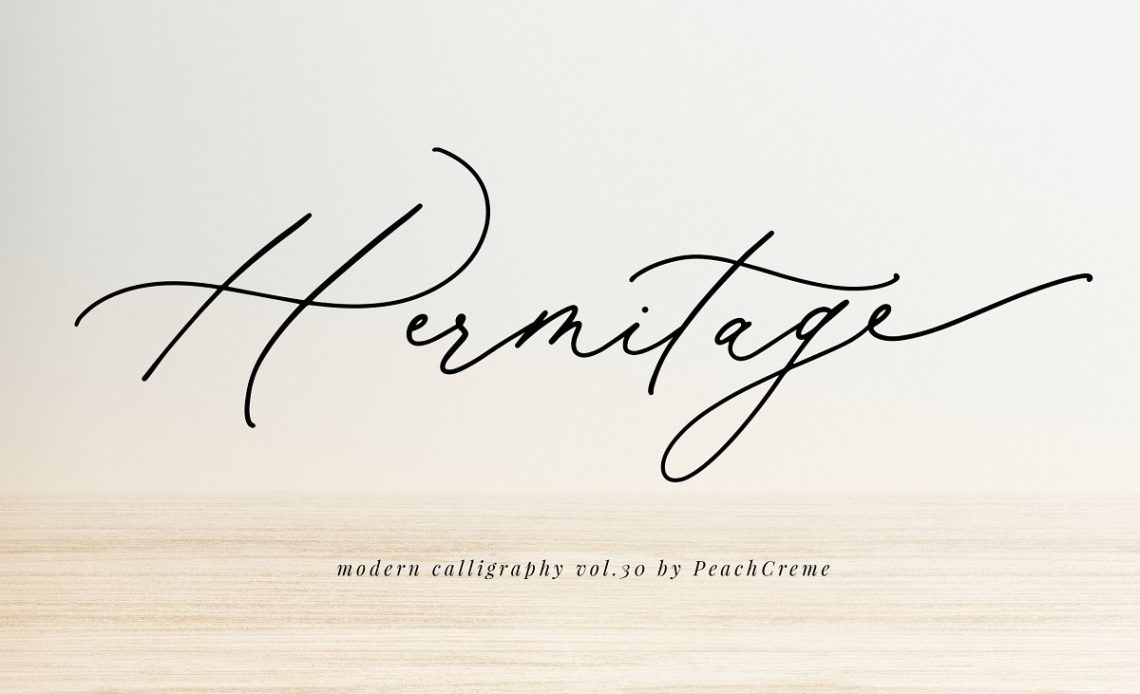
Welcome to the world of Hermitage Modern Calligraphy font, created by PeachCreme. Hermitage is not just any script font; it's a chic modern calligraphy font that is perfect for any spa website. Its full set of lovely uppercase and lowercase letters, multilingual symbols, numerals, punctuation, and ending lowercase swashes are sure to elevate your design to the next level.